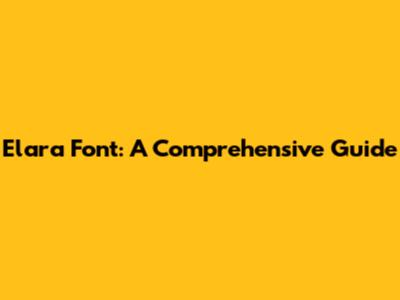
Elara Font: A Comprehensive Guide
Hey guys! Ever stumbled upon a font that just clicks? That's how I felt when I first discovered Elara Font. It’s not just another typeface; it's a versatile tool that can seriously elevate your design game. In this comprehensive guide, we’re diving deep into everything Elara, from its origins and characteristics to its best uses and where you can snag it for your projects. So, buckle up, font fanatics, and let's get started!
What is Elara Font?
When we talk about Elara Font, we're talking about a modern sans-serif typeface that's all about clean lines and readability. Think of it as the minimalist’s dream font. Its simplicity is its superpower, making it incredibly versatile for a wide range of design applications. But what exactly makes Elara stand out in a sea of fonts? Let's break it down.
First off, Elara's design philosophy centers around clarity. The letterforms are meticulously crafted to ensure each character is easily distinguishable, which is crucial for both body text and headlines. The font family often includes various weights, from thin and elegant to bold and impactful, giving designers a full spectrum of options to play with. This adaptability is a major win, guys, because you can use Elara for everything from sleek websites to professional documents.
Elara Font is also designed with a certain neutrality in mind. It doesn't scream any particular emotion or style, which means it can seamlessly fit into various design contexts. Whether you're working on a corporate report, a stylish blog, or a cutting-edge marketing campaign, Elara can adapt and complement your design without overpowering it. This understated elegance is what makes it a go-to choice for designers who value sophistication and clarity.
Another key characteristic of Elara Font is its modern aesthetic. The geometric shapes and balanced proportions give it a contemporary feel that's perfect for projects aiming for a clean and current look. It’s the kind of font that says, “I’m professional, but I also have a sense of style.” Plus, the attention to detail in its design ensures it looks great both on screen and in print, which is a huge bonus in our multi-platform world.
Elara's versatility extends to its language support as well. Many versions of the font include a wide range of characters and glyphs, making it suitable for international projects. This global-friendly approach is another reason why it’s a favorite among designers working with diverse audiences. So, whether you're crafting content in English, Spanish, or Swahili, Elara has got your back.
In short, Elara Font is a modern sans-serif typeface that prides itself on clarity, versatility, and a clean design. It’s a font that can handle a wide array of design tasks with grace and style, making it a valuable addition to any designer's toolkit. Trust me, once you start using Elara, you'll see why it's more than just a font—it's a design companion.
The History and Origins of Elara Font
So, you're probably wondering, where did this awesome Elara Font come from? Understanding the history and origins of a typeface can give you a deeper appreciation for its design and how best to use it. While the exact origins can vary depending on which specific version of “Elara” we’re talking about (as there might be different fonts with the same name), the general principles behind its creation often share a common thread. Let’s dive into the typical journey of a font like Elara.
Most modern fonts, including those like Elara Font, are the brainchild of talented type designers or foundries who pour their heart and soul into crafting each character. These designers often draw inspiration from a variety of sources, including historical typefaces, geometric forms, and even architectural styles. The goal is to create a font that not only looks good but also serves a specific purpose, whether it's readability in long texts or making a bold statement in headlines.
The process of creating a font like Elara Font is no small feat. It starts with sketching out the basic letterforms, paying close attention to details like the x-height (the height of the lowercase letters), the ascenders (the parts of letters that go above the x-height), and the descenders (the parts that go below the baseline). Each character needs to work harmoniously with the others, creating a cohesive and visually appealing whole. This is where the designer's skill and artistry truly shine.
Once the basic forms are sketched, the designer moves on to refining the letterforms digitally. This involves using specialized software to create vector versions of the characters, ensuring they look crisp and clear at any size. The spacing between letters (kerning) and between lines (leading) is meticulously adjusted to optimize readability. It’s a painstaking process, guys, but it’s what makes a font truly professional and user-friendly.
Elara Font, being a modern sans-serif, likely draws inspiration from the modernist movement in design, which emphasizes simplicity, functionality, and clean lines. Think of fonts like Helvetica or Futura—they share a similar design philosophy. This means Elara is often created with a focus on legibility and versatility, making it suitable for a wide range of applications. The geometric shapes and balanced proportions are a nod to this modernist influence.
In conclusion, Elara Font is a versatile, modern, and highly readable typeface that’s well-suited for a wide range of design applications. Its clean lines, neutral tone, and ease of access make it a valuable asset for any designer looking to create polished and professional work. So, if you haven’t already, consider adding Elara to your font library. You won't regret it, guys! It’s a font that will serve you well in countless projects to come. Trust me, Elara is more than just a font; it's a design companion that’s ready to elevate your creations.